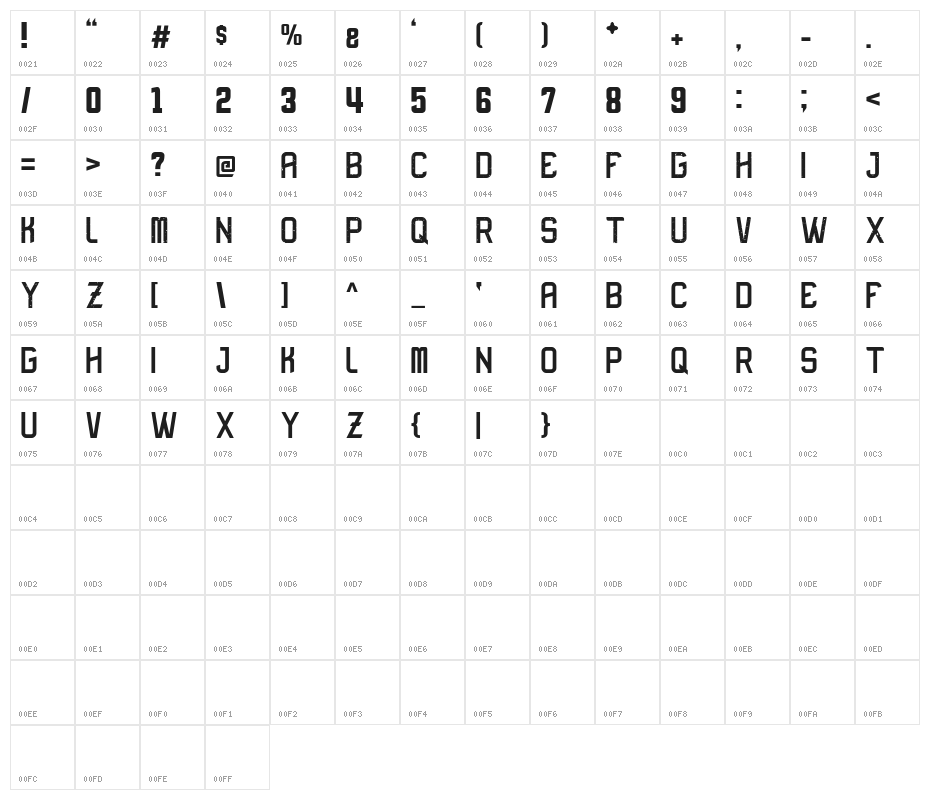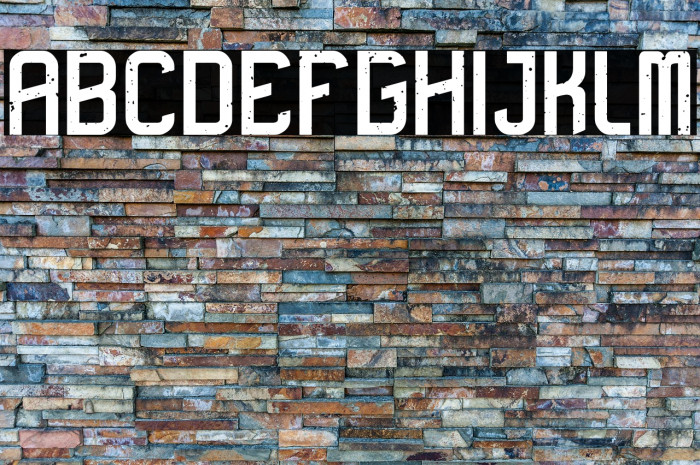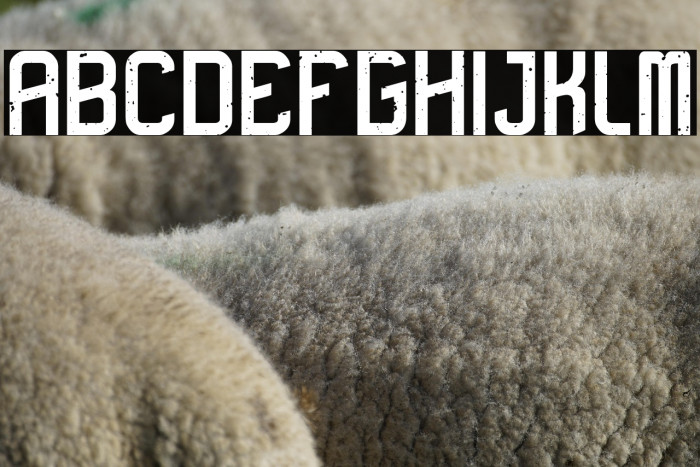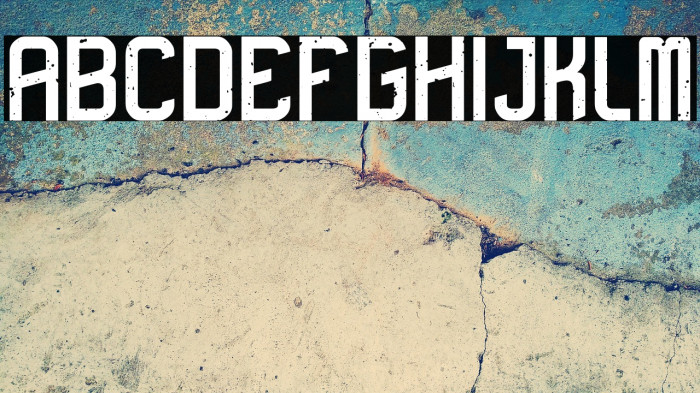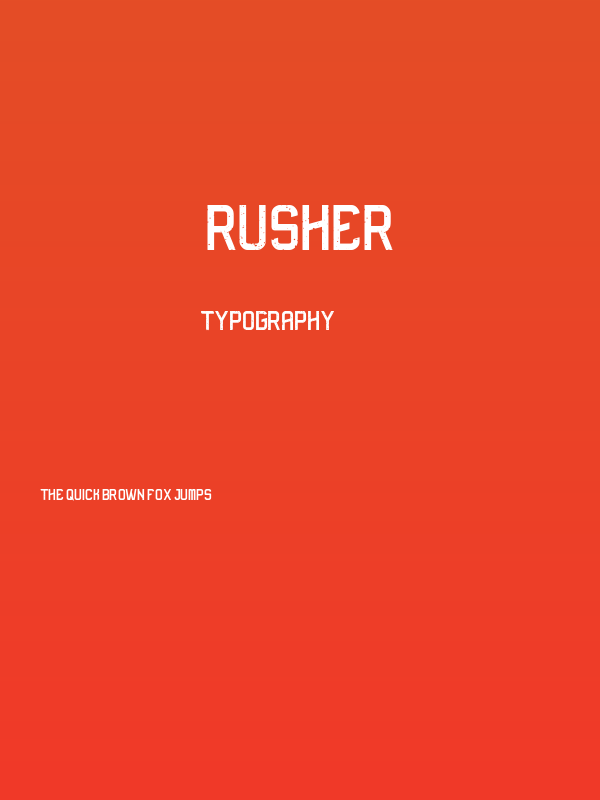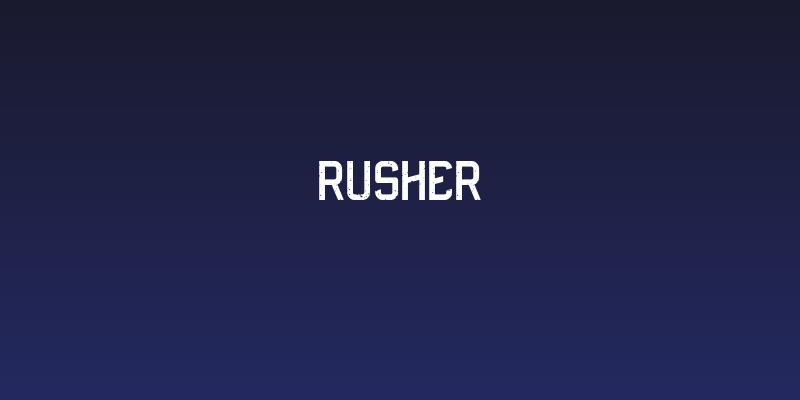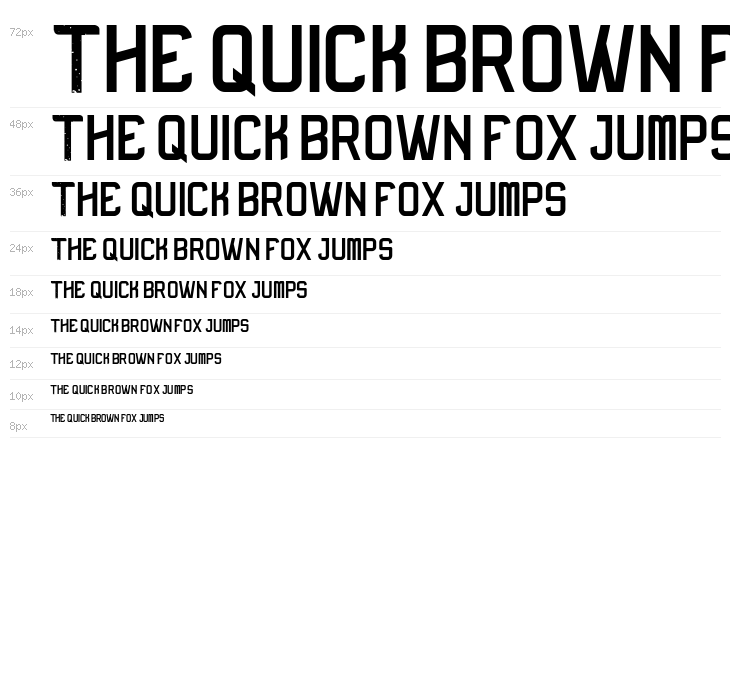
rusher Font
rusher Description
This font features a bold, industrial design with a strong presence. The uppercase letters are characterized by their block-like structure and slightly rounded edges, giving them a modern yet rugged appearance. The lowercase letters maintain a consistent style, complementing the uppercase with a similar geometric form. Numbers are equally bold and clear, ensuring readability. Special characters are designed to match the overall aesthetic, with a focus on maintaining the font's robust and impactful look. The distressed texture adds a vintage touch, making it suitable for projects that require a gritty, authentic feel.
| Overall Style | Industrial, Vintage |
| Proposed Projects | Ideal for branding, posters, and signage that require a bold and industrial aesthetic. |